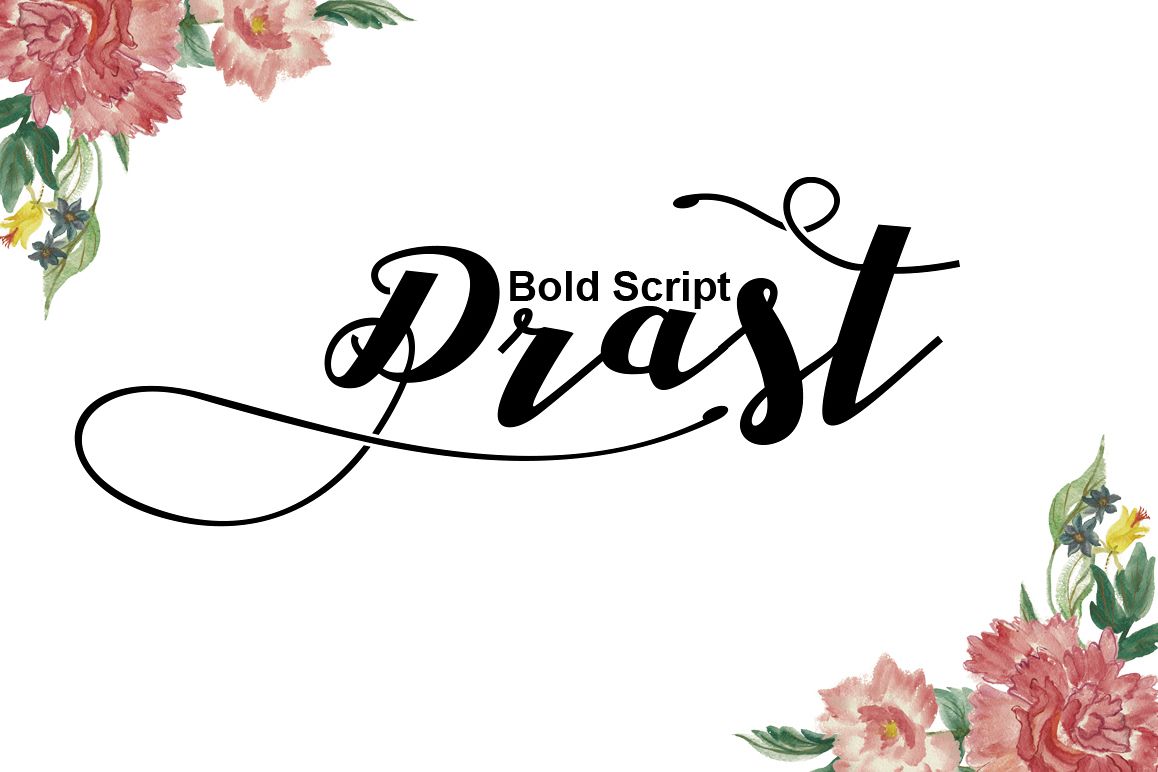
Drast Bold Script
DrastScript.
New Present Drast Bold Script
Drast Bold Script is a Bold Hand Calligraphy, modern calligraphy wavy, which was created to meet the needs of your next design project.
Drast Bold Script, Can used for various purposes. such as the title, logo, correspondence, wedding invitations, letterhead, signage, labels, newsletters, posters, badges, t-shirt, etc.
Comes with upper and lowercase characters, large set of punctuation glyphs, numerals, and supports international languages. Stylistic alternates for several key lower case characters.
Standard Character. 619 Glyph 423 Swash + Ligature.